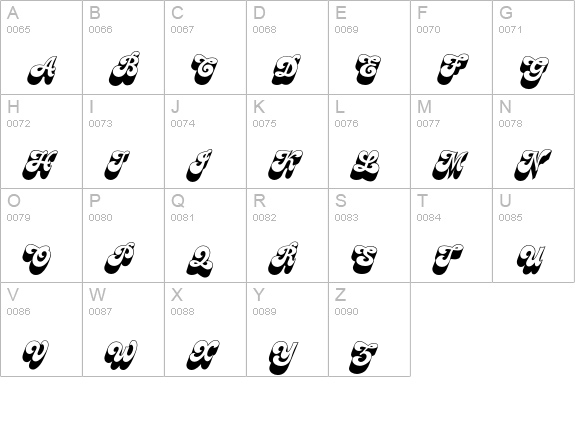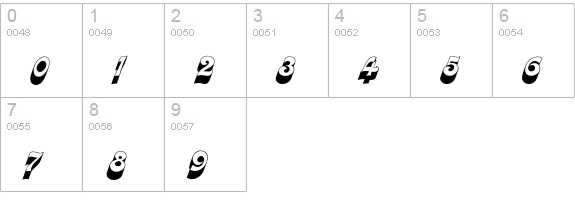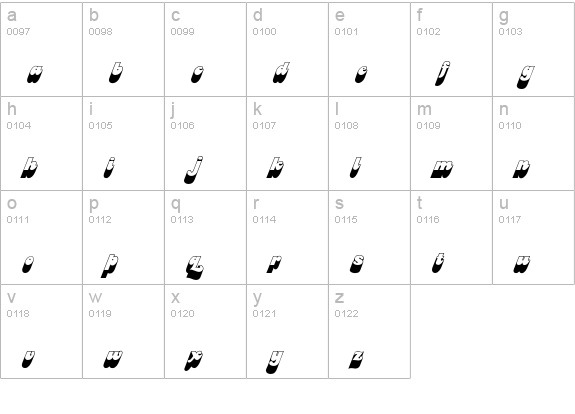
BenguaitCharismaShaded Font Details
BenguaitCharismaShaded is a stunning and elegant font that exudes charisma and charm. With its unique shading and intricate details, this font is perfect for adding a touch of sophistication to any design project. The flowing lines and stylish curves of BenguaitCharismaShaded make it a versatile choice for a wide range of applications, from logos to branding to invitations. What sets BenguaitCharismaShaded apart is not only its beauty but also the fact that it is completely free to download. That's right - you can enhance your projects with this exquisite font at no cost at all! Simply head over to FontsMarket.com and start exploring the endless possibilities that BenguaitCharismaShaded has to offer. Let your creativity shine with this exceptional font that is sure to make a lasting impression.